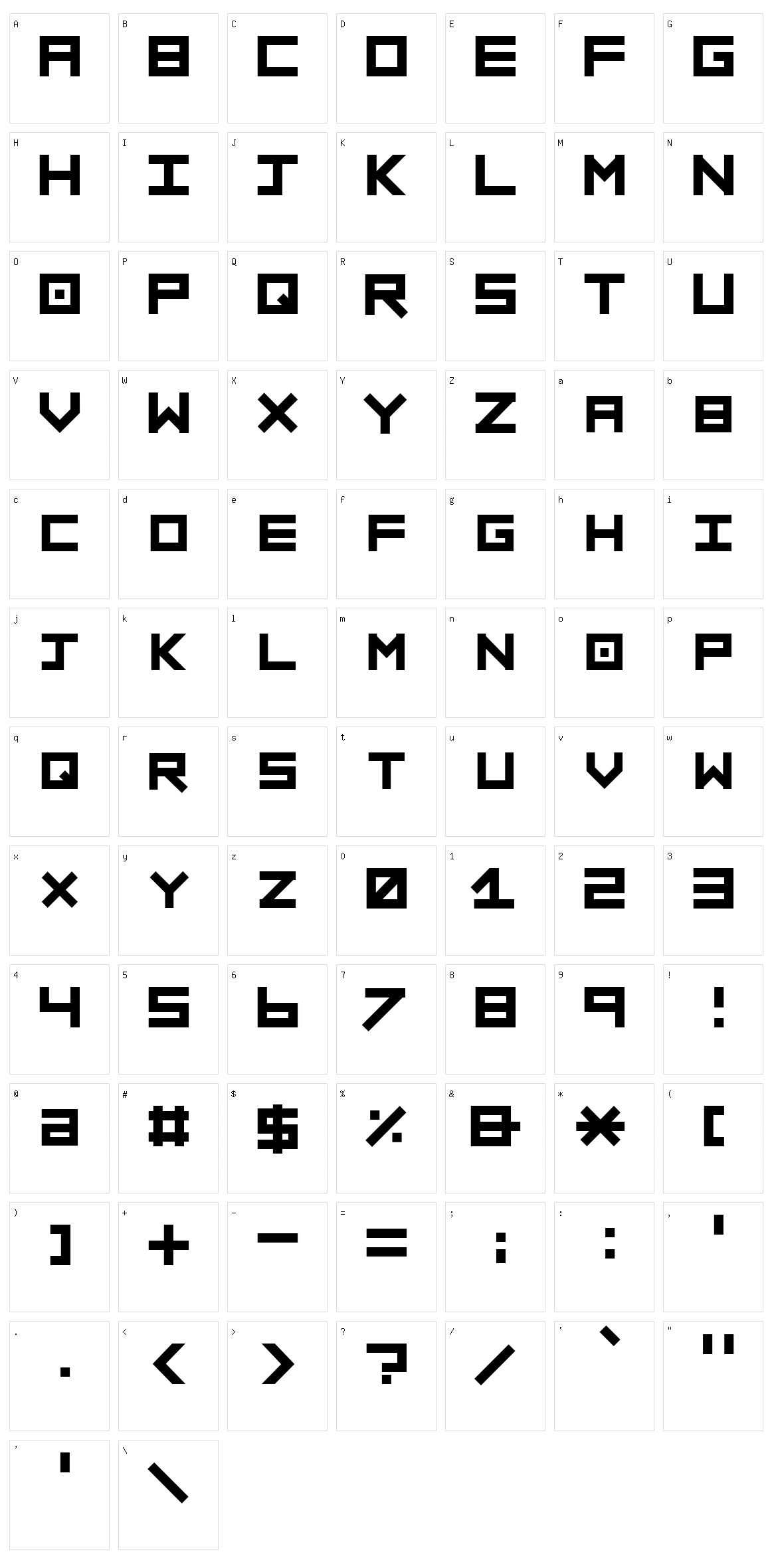
The free font Sinner is carefully designed by Helge Barske, showcasing a thoughtful balance of creativity and usability and falls under the Square font style. When you download the ZIP file, it contains only 7.53 KB of font files, making it lightweight and quick to download. Please review the license details below to understand permitted usage and distribution rights. If license information is not available, we recommend using this font for personal projects only or contacting the author directly for commercial usage permissions.